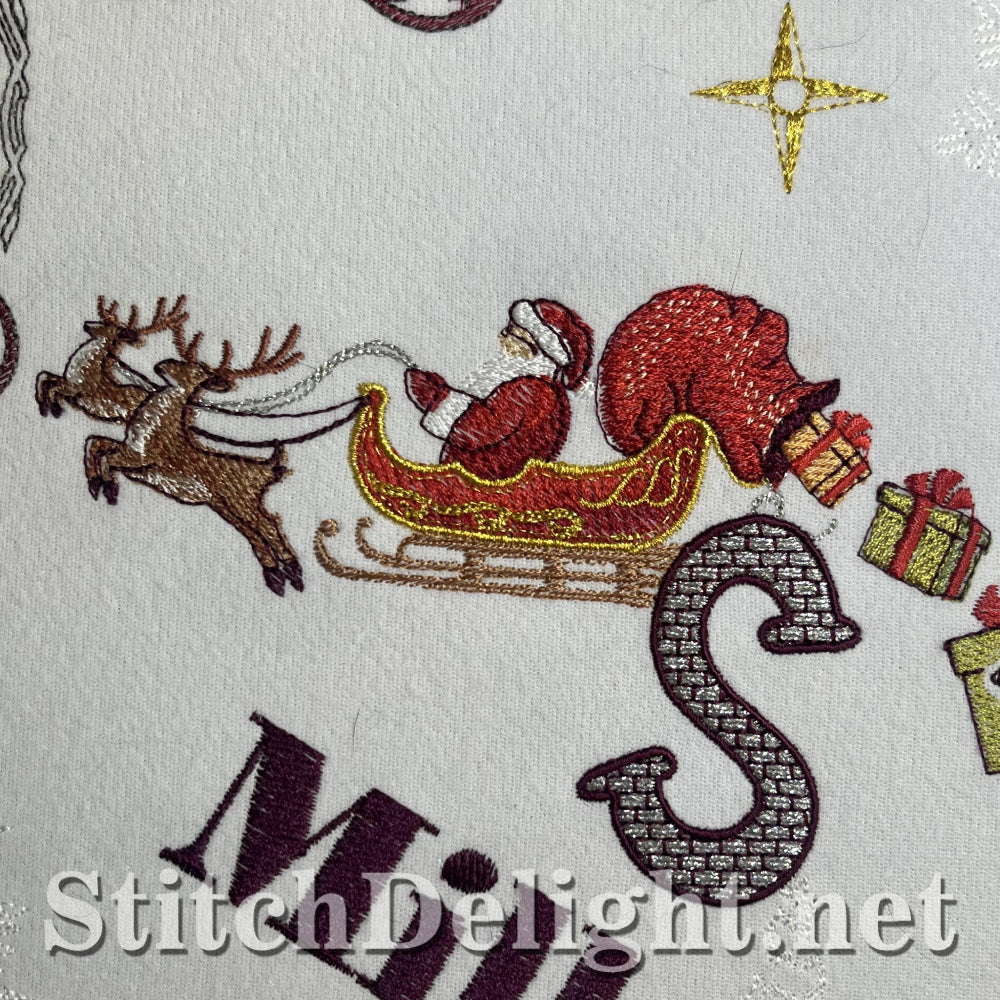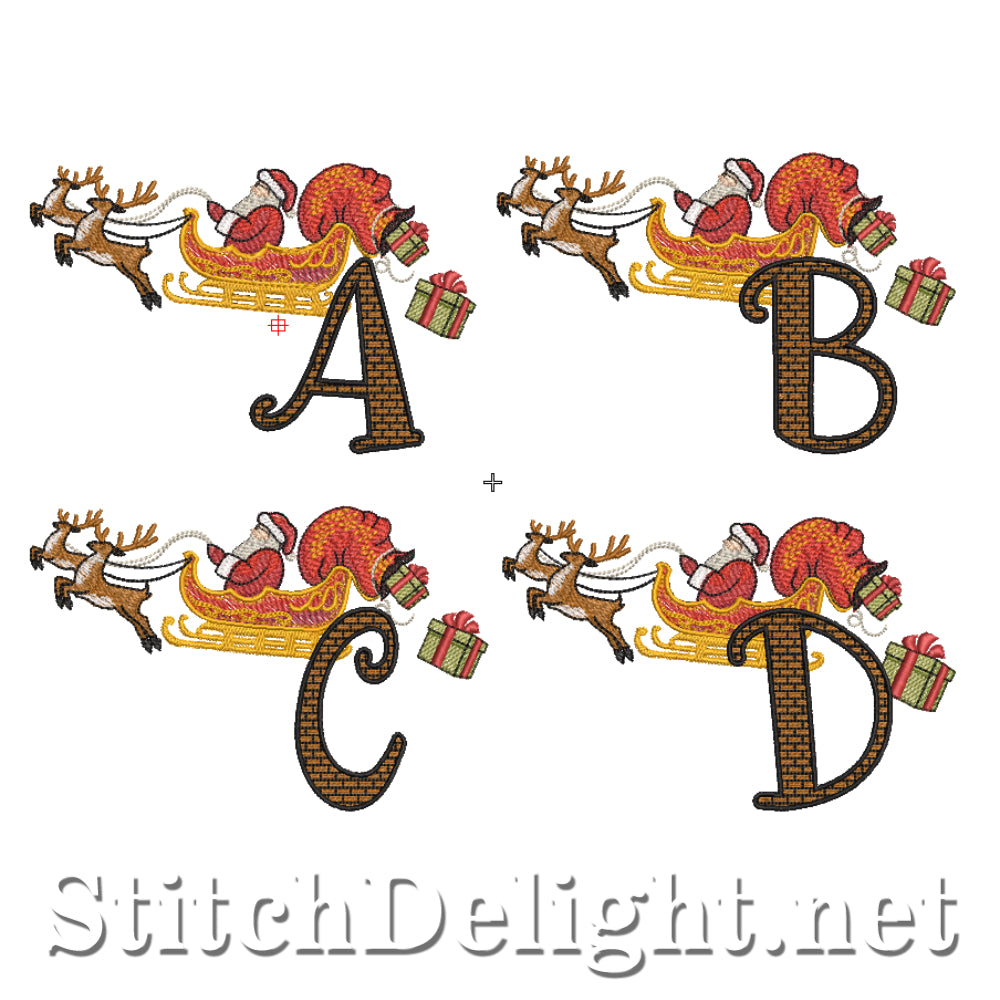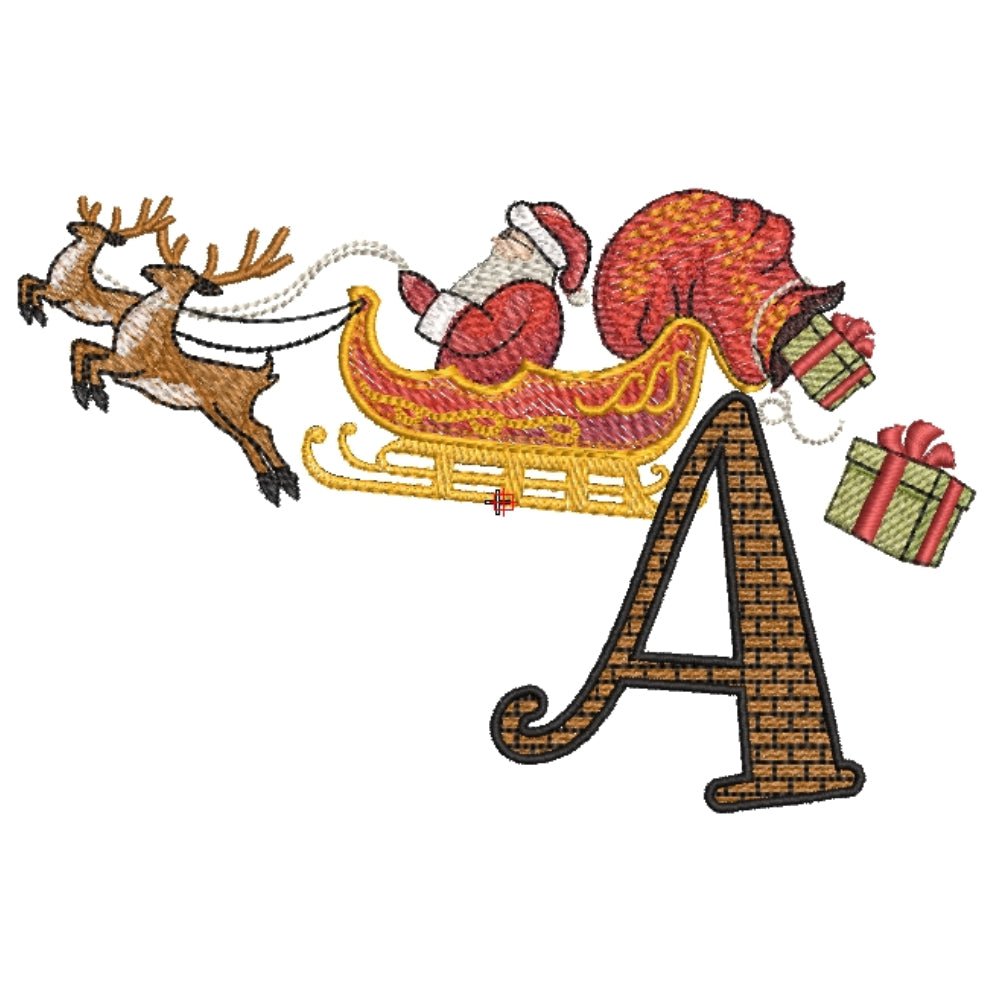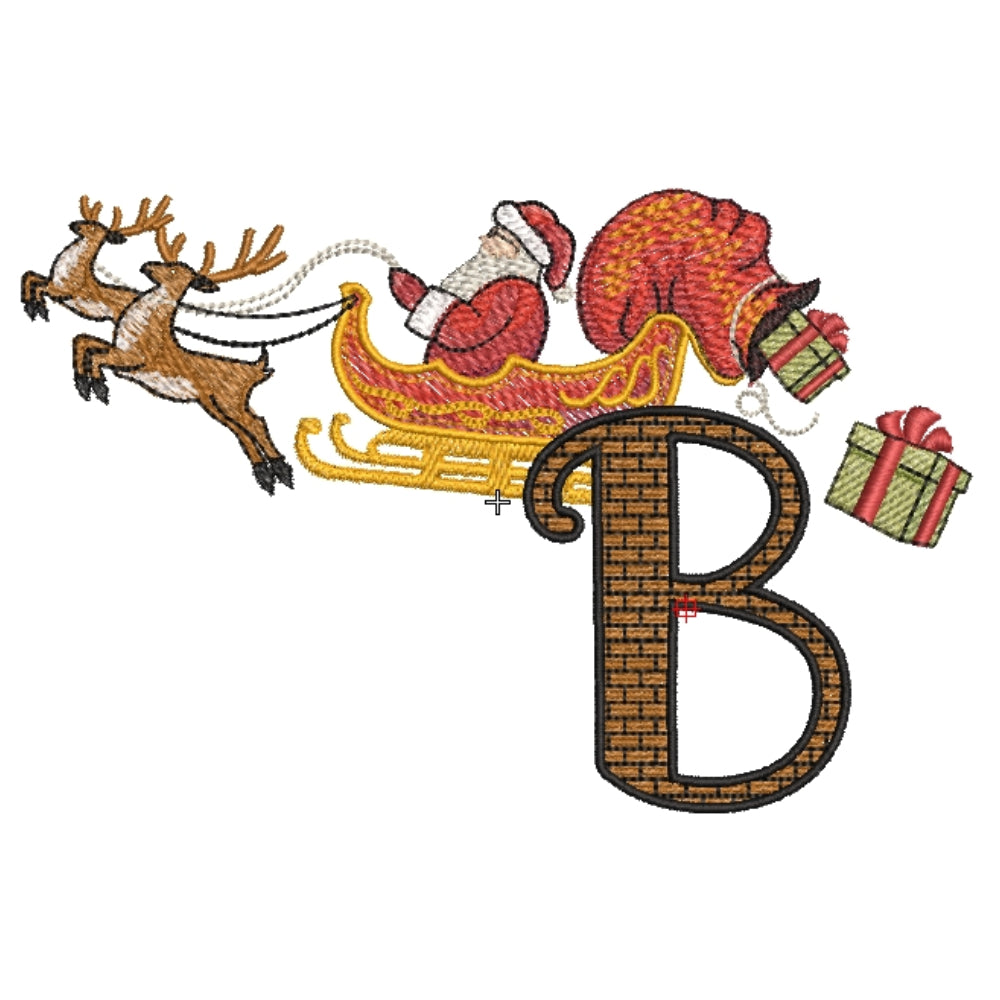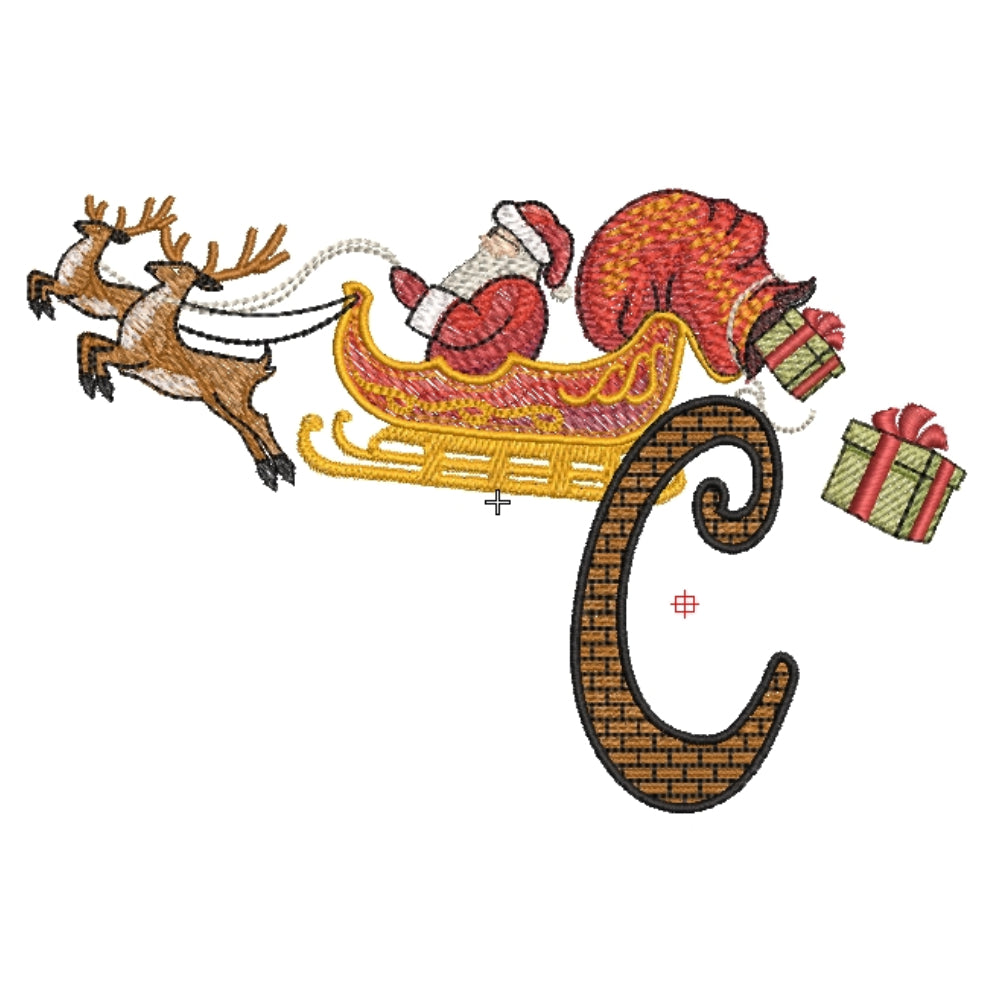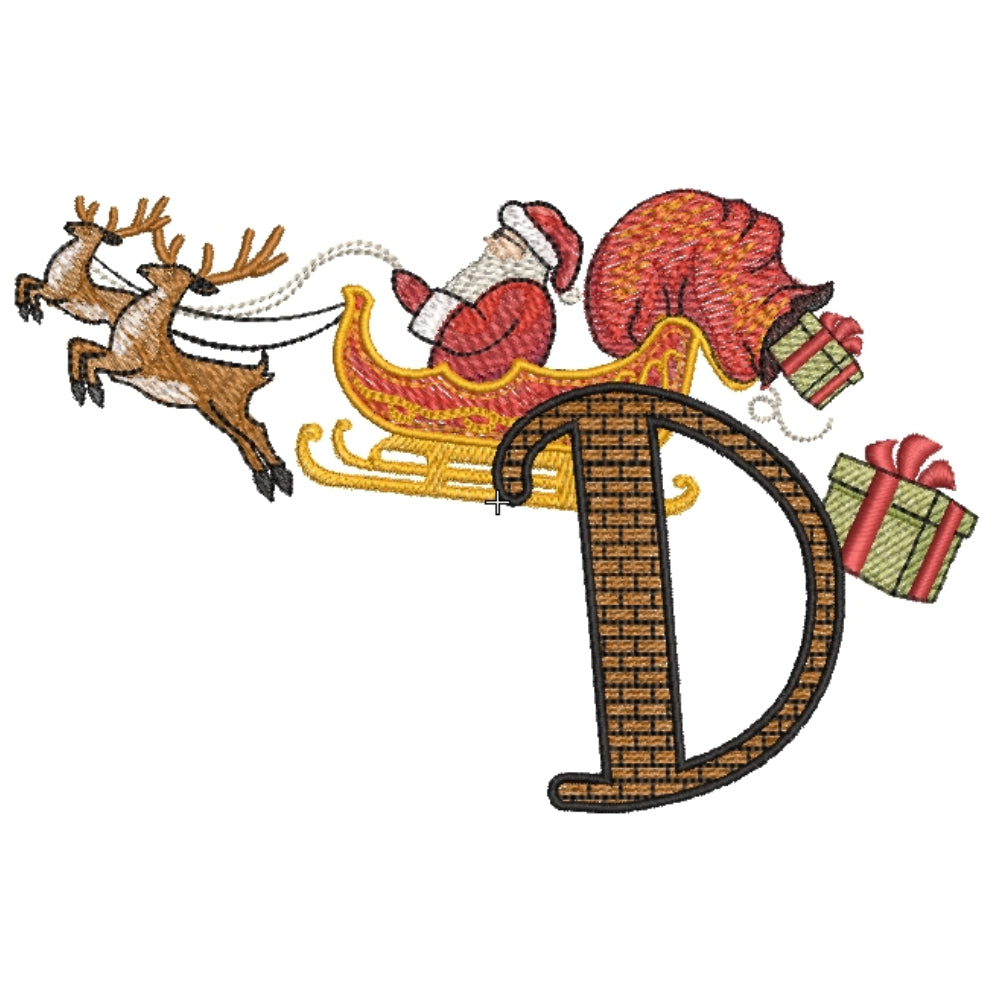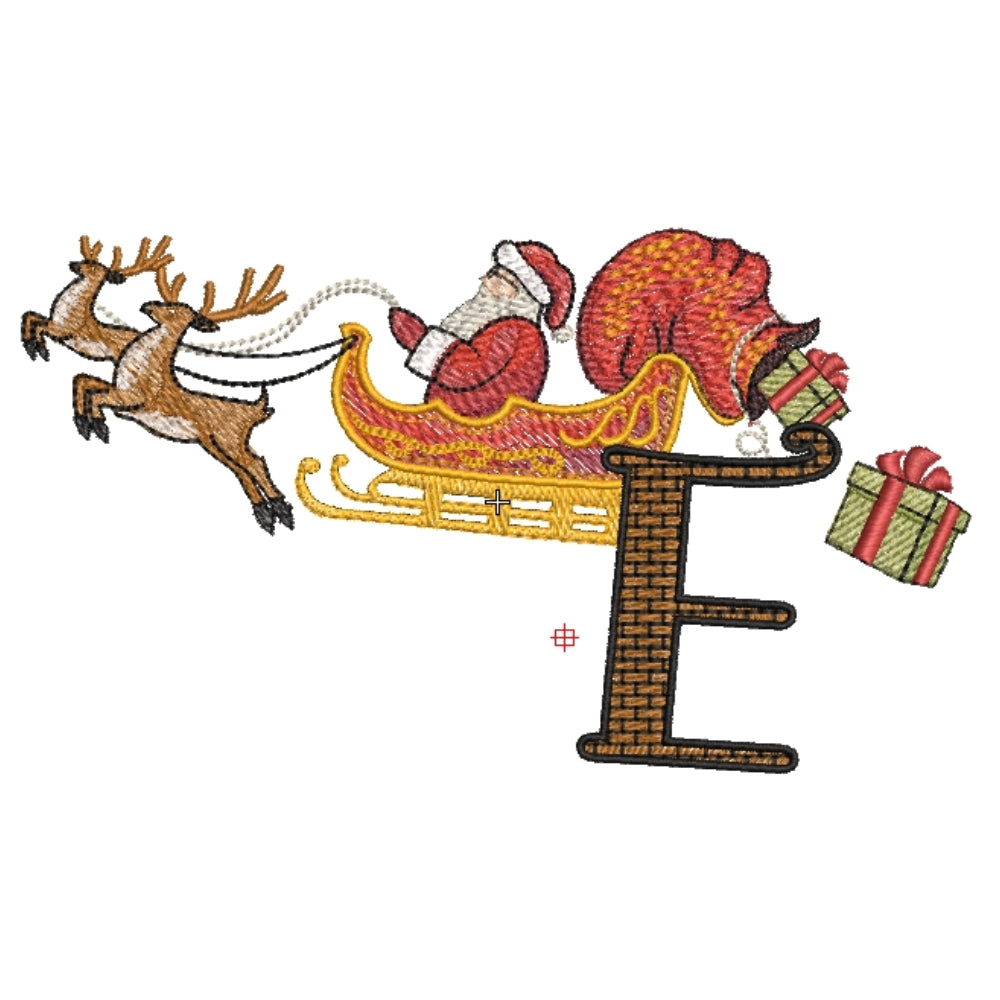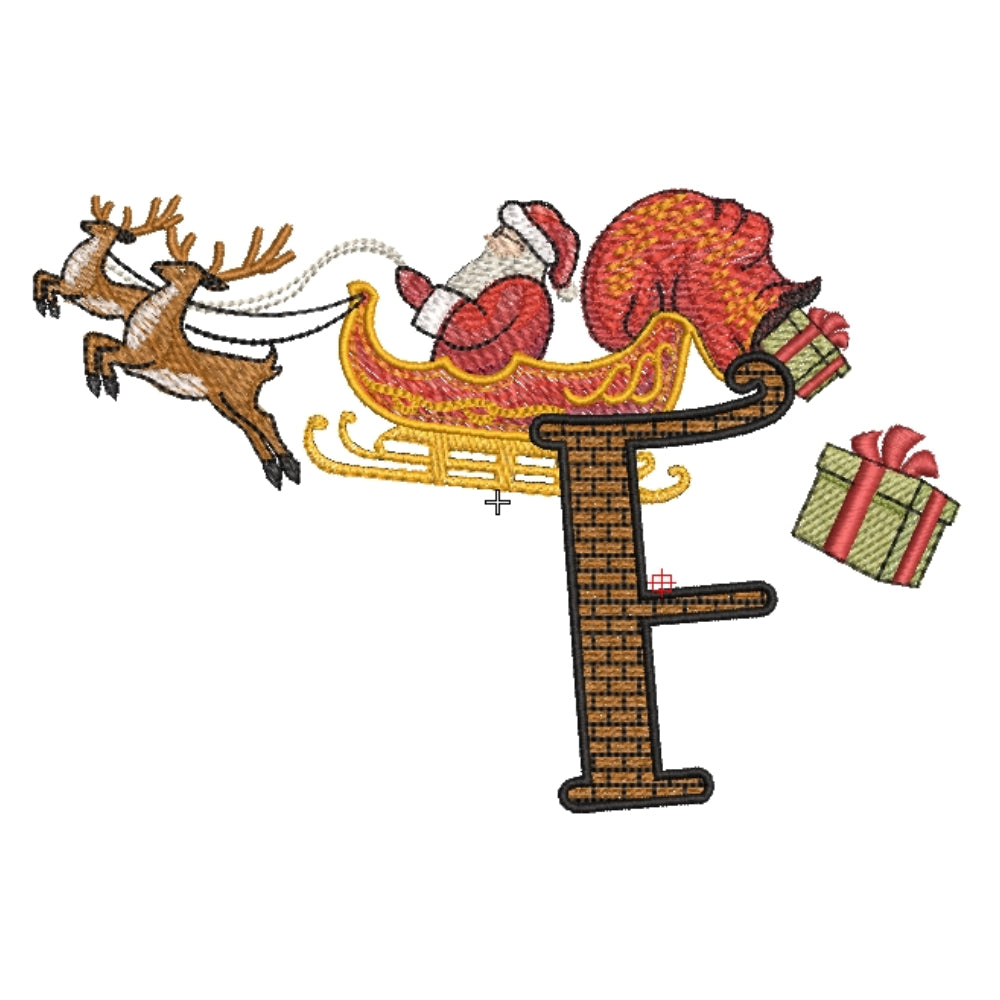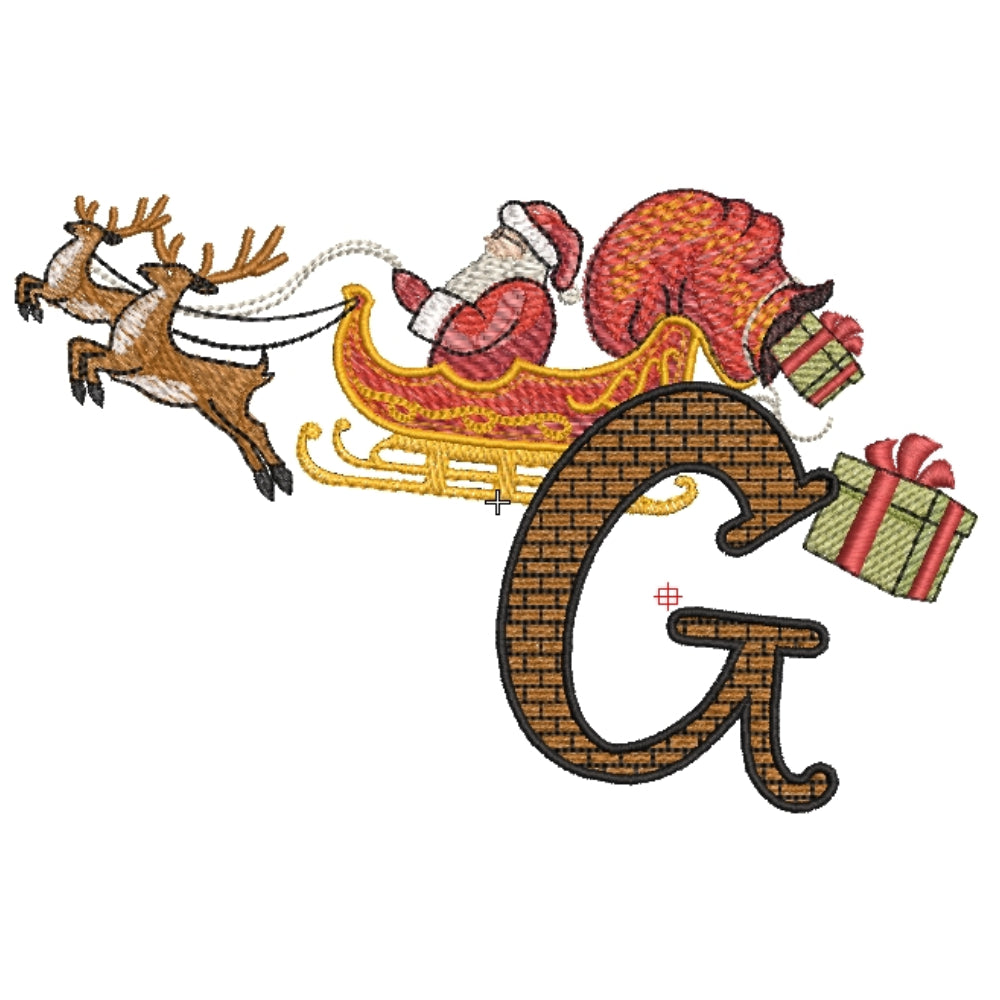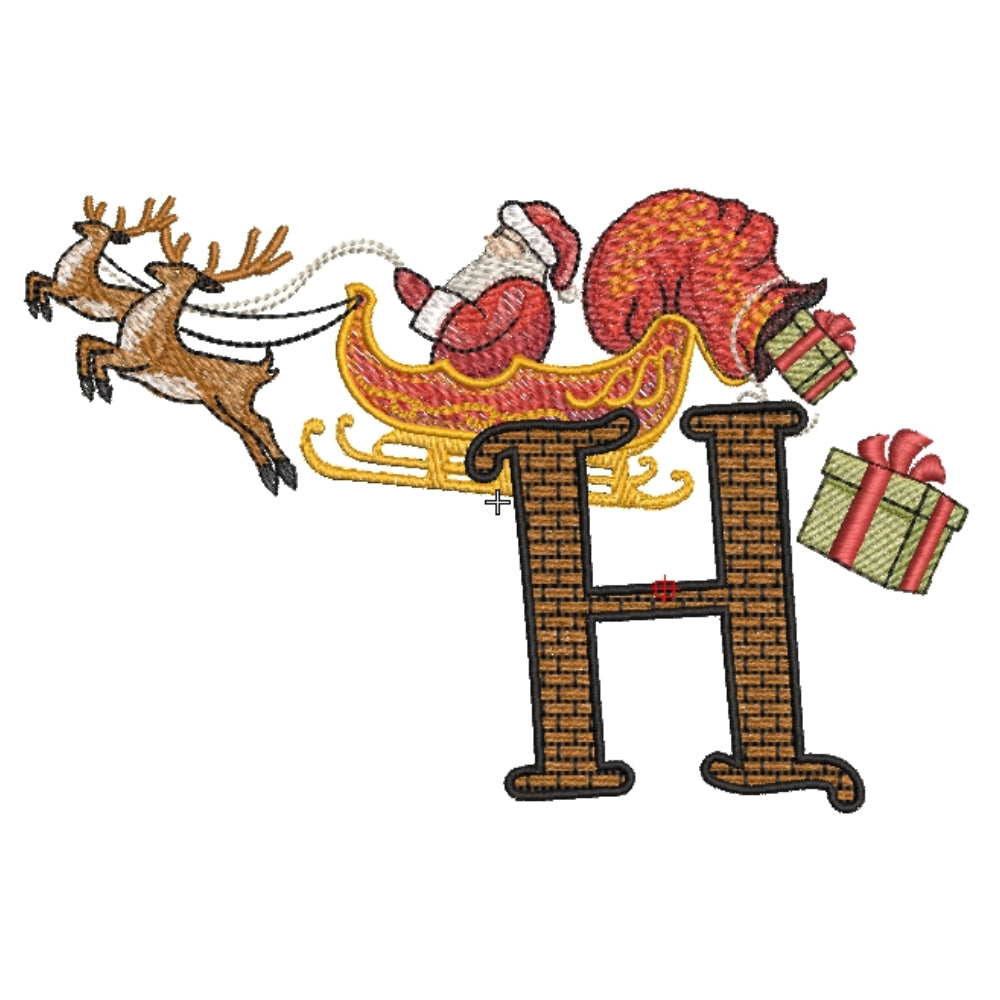
This festive font brings gifts with every stitch, just like Santa spreading joy wherever he goes. It pairs perfectly with the SDS3308 Presents Font, making it an ideal choice for holiday projects.
Customise your project with using this fun design.